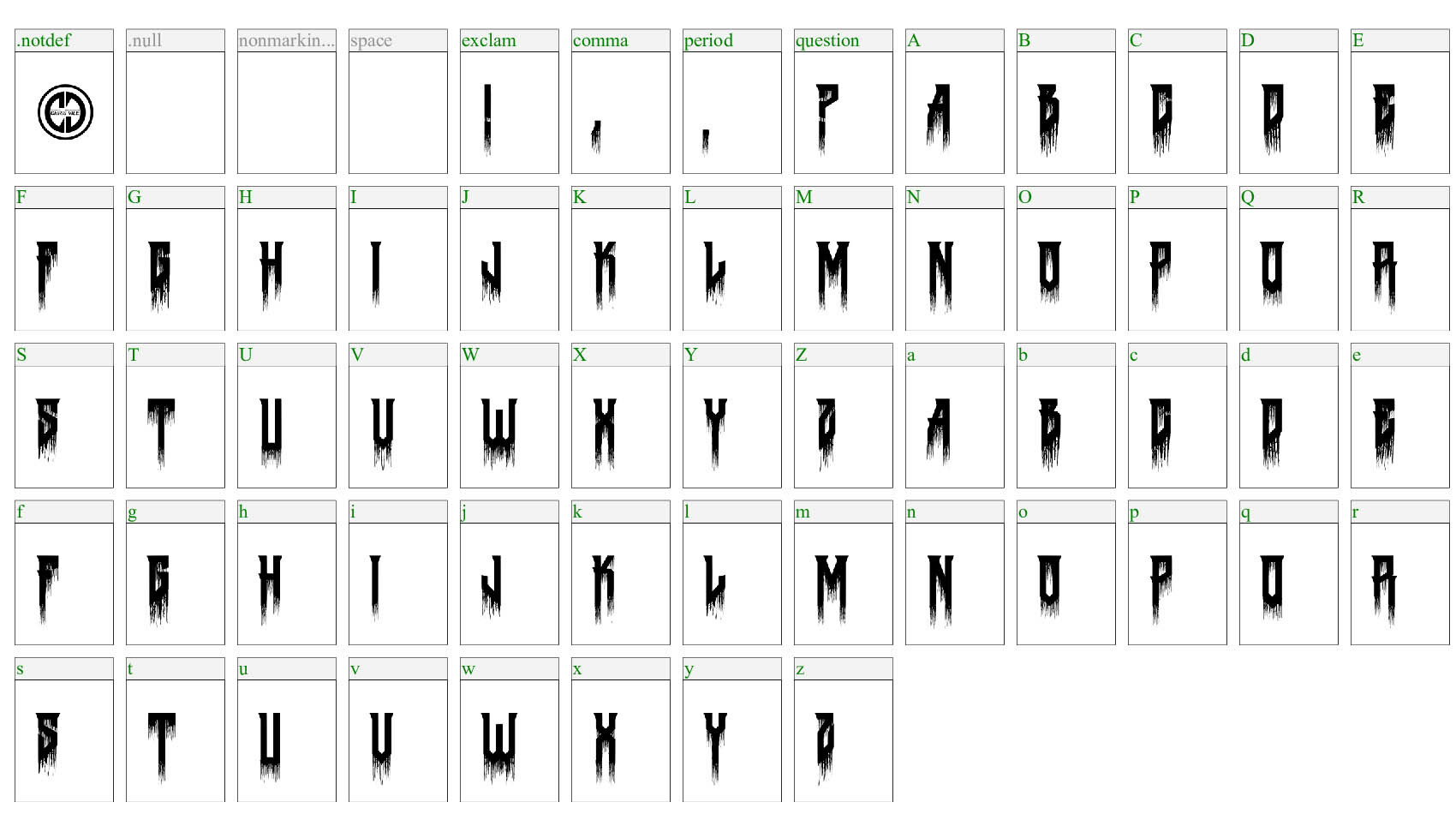
Lowercase: Same as uppercase
Numbers: Not available
Symbols: Very limited, view image below to see available characters
Theme: Horror, death metal, grindcore